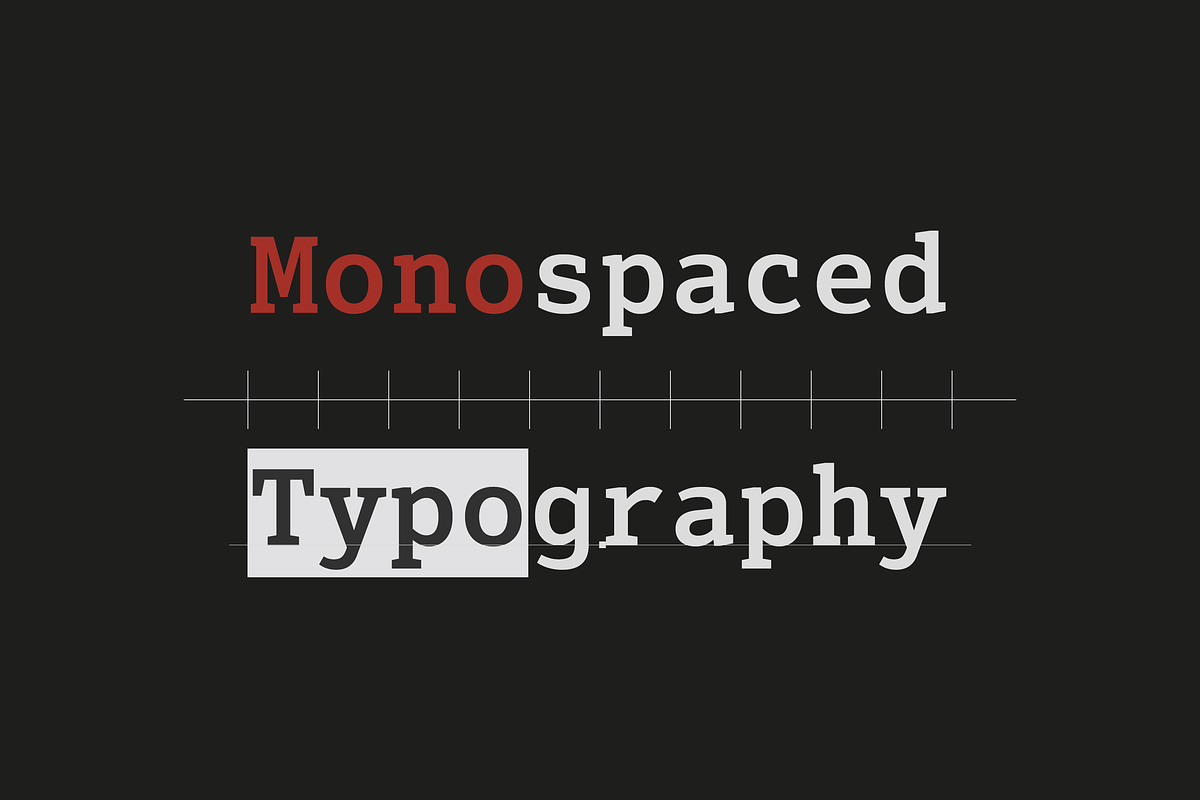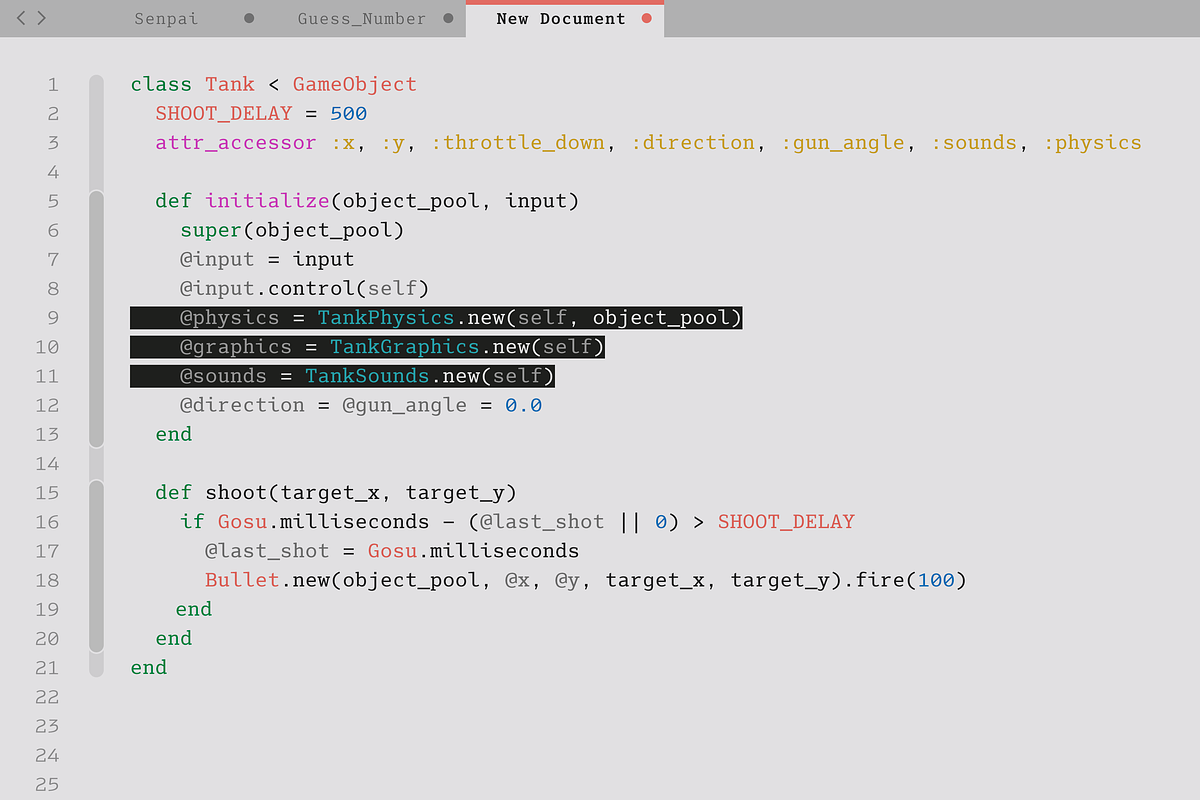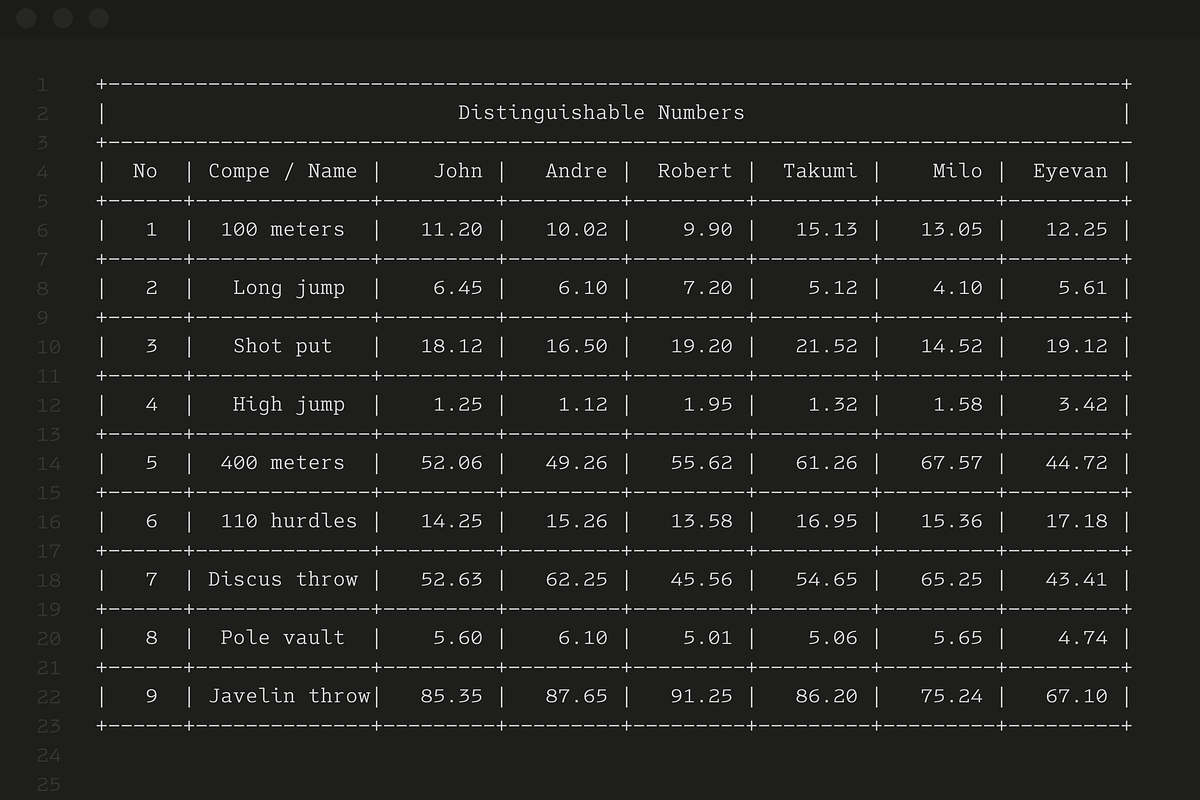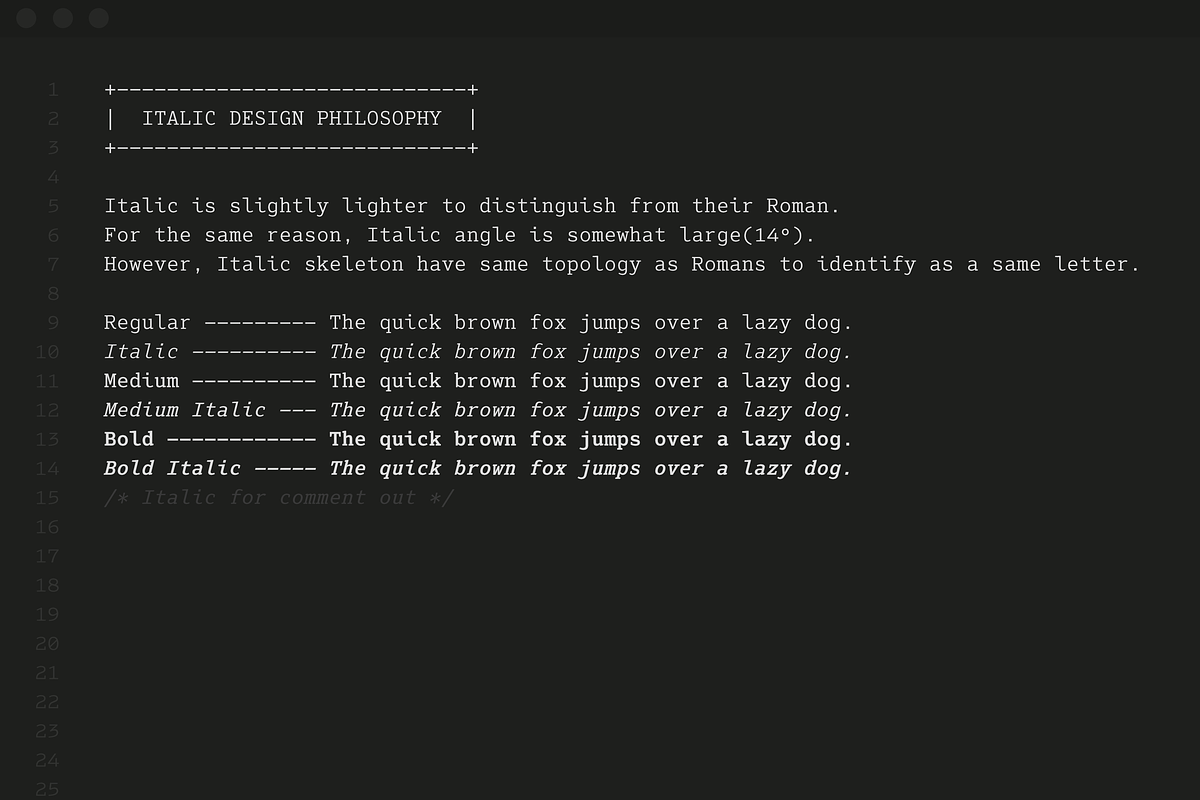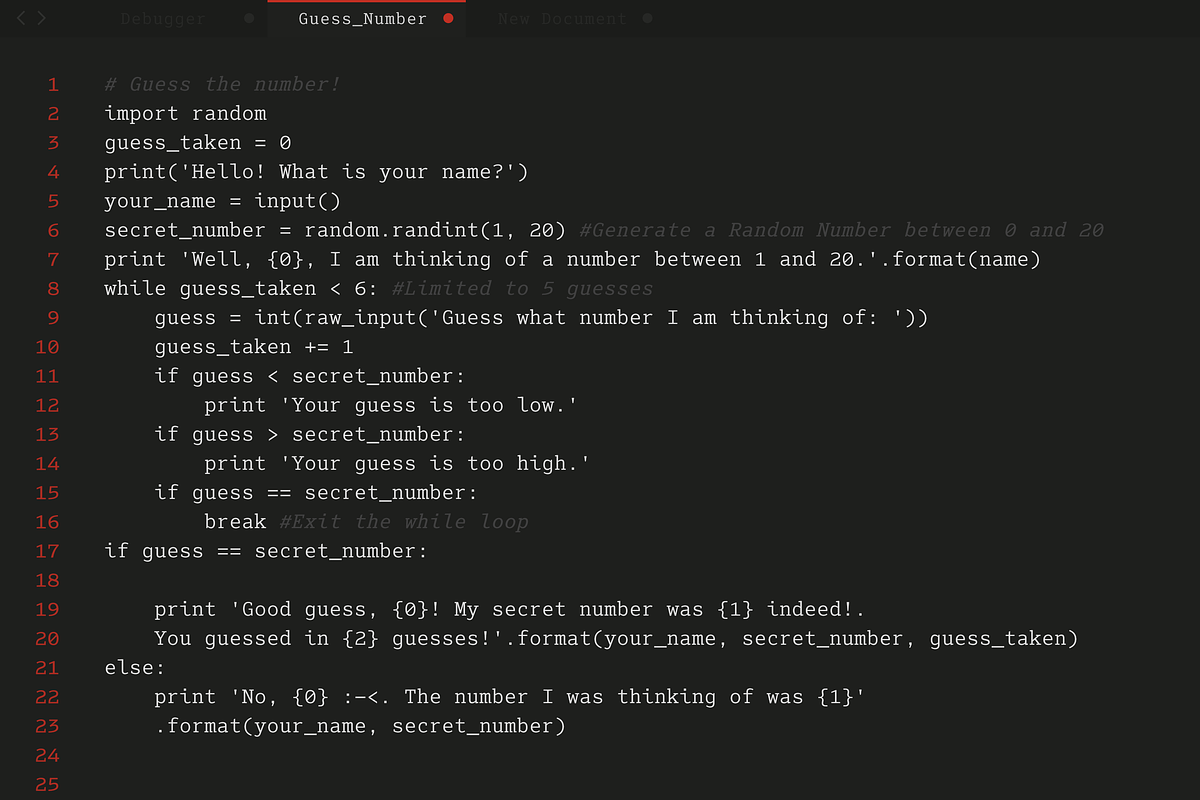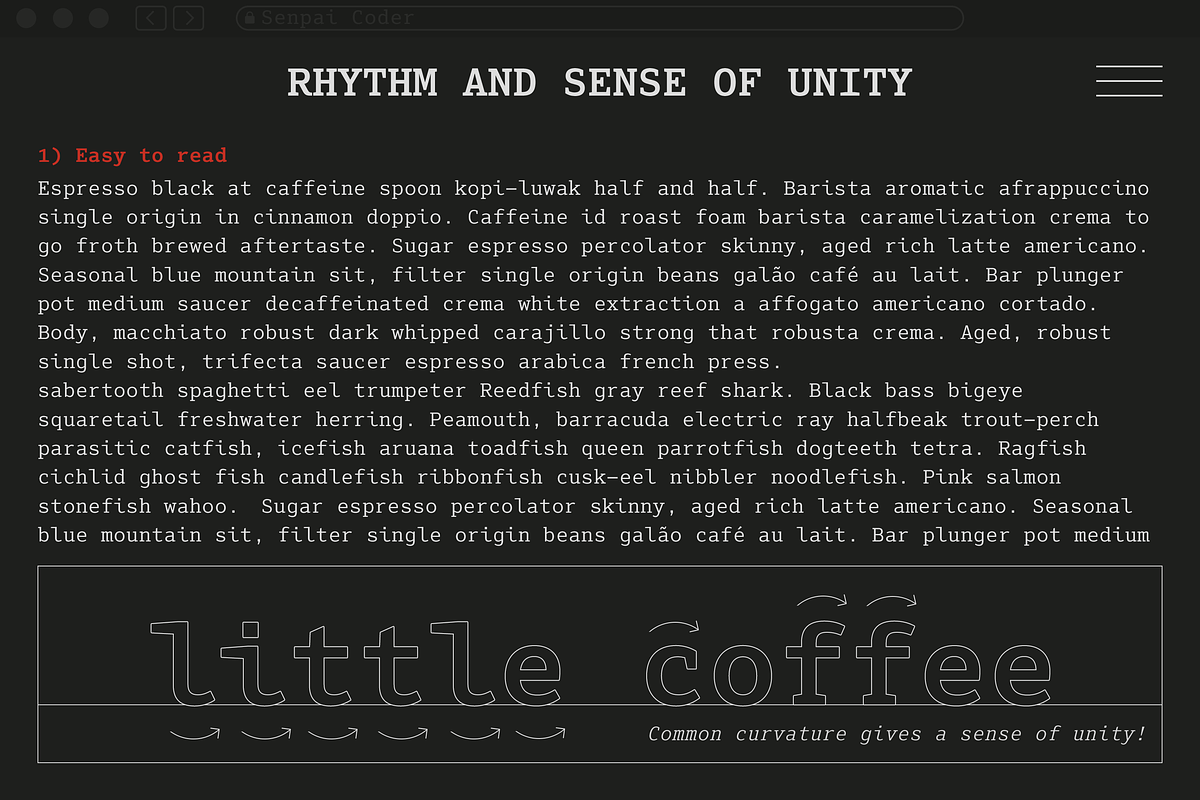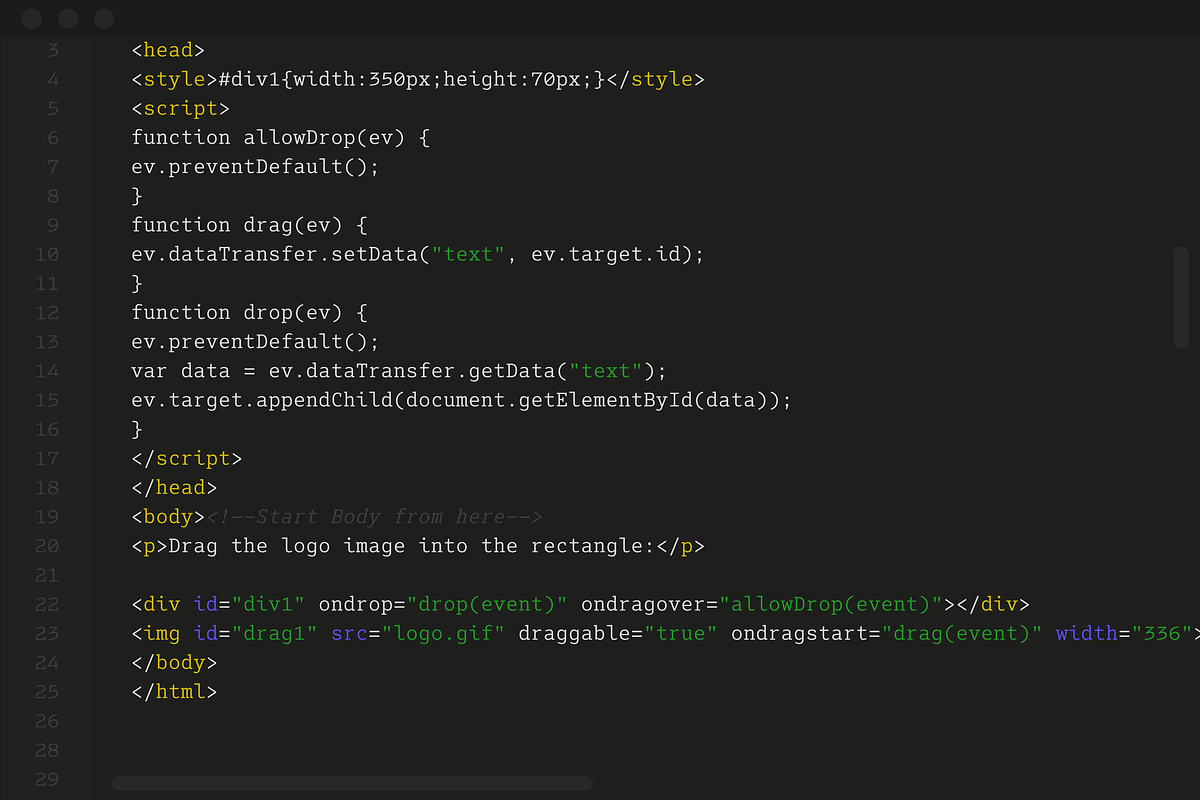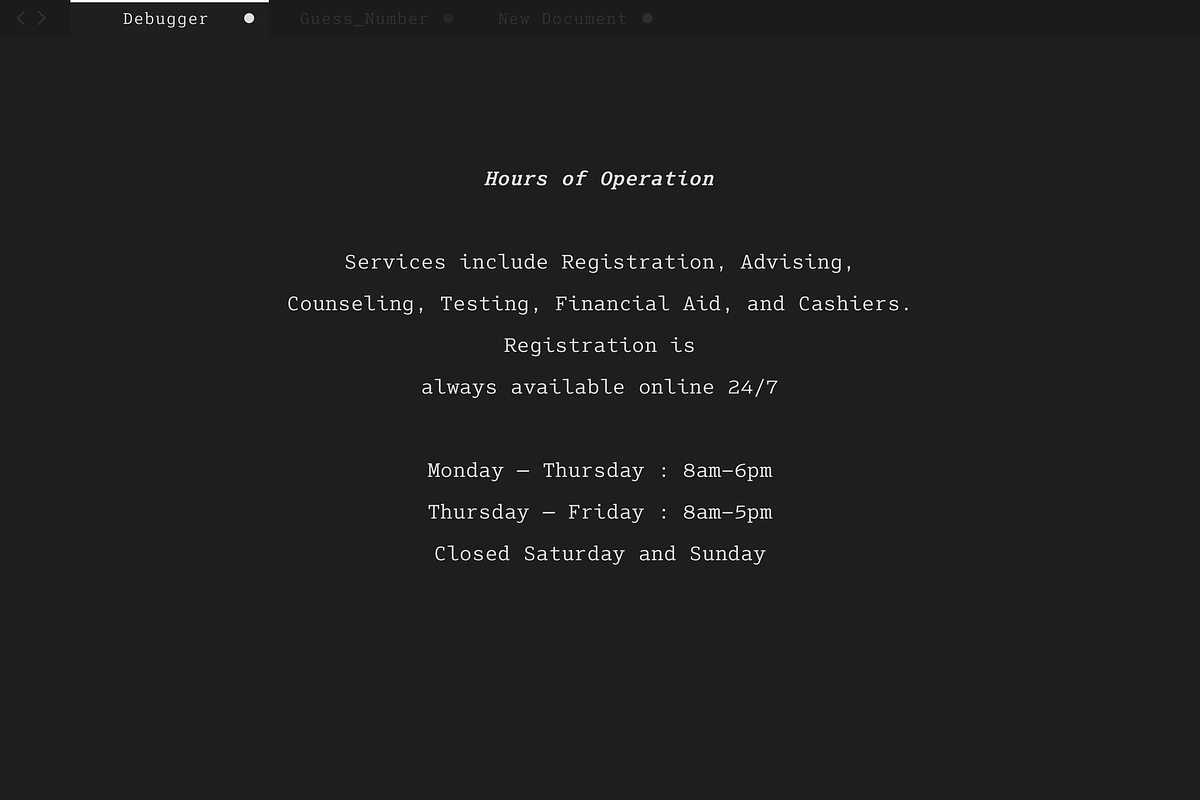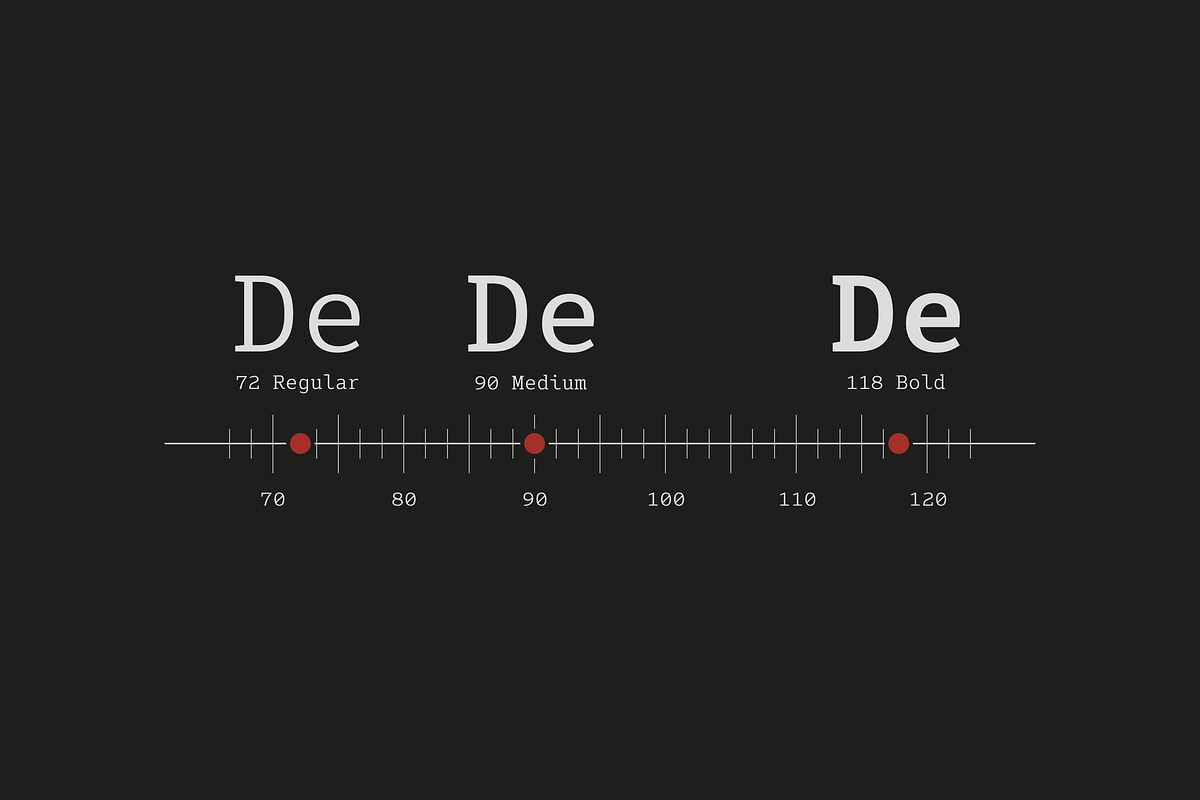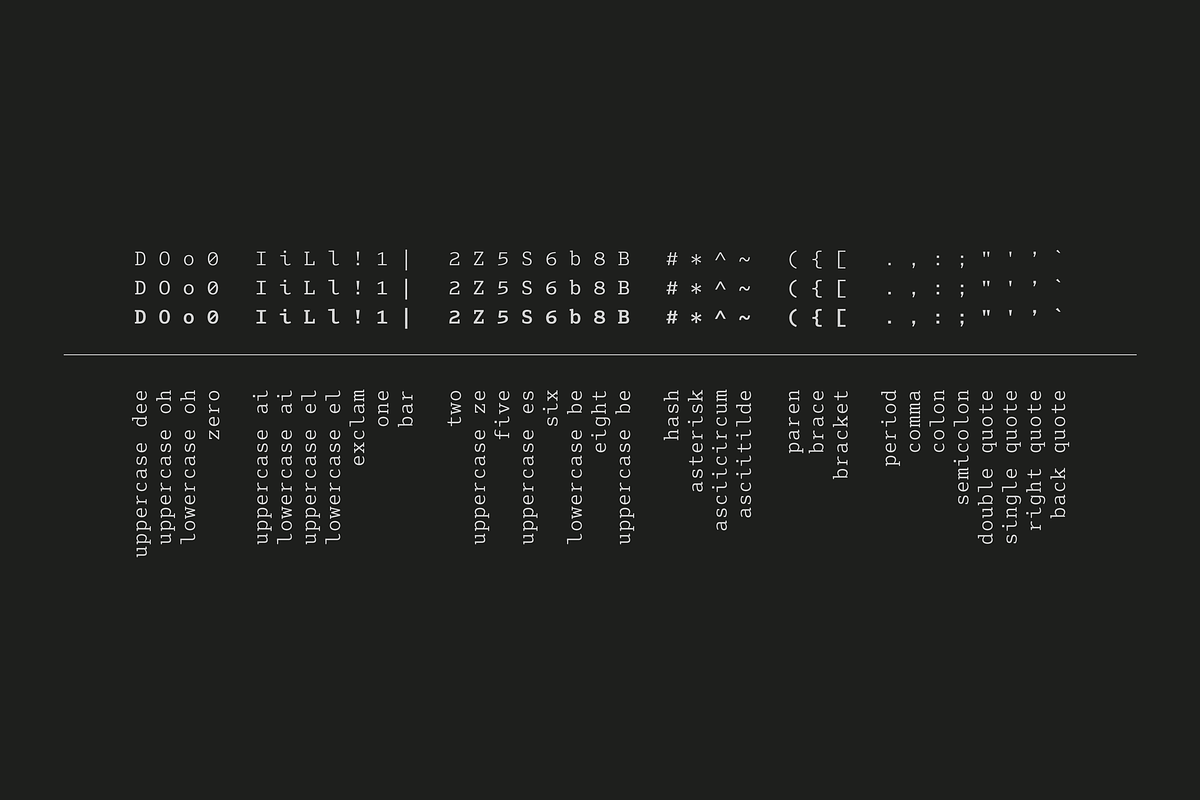
Senpai Coder
Senpai Coder is a typewriter-inspired monospaced font family designed specifically for development, programming, coding, and tabular layouts. In monospaced typefaces, three qualities are essential:
- Easy to distinguish
- Easy to identify
- Easy to read.
Senpai Coder embodies all three. It features carefully refined letterforms that clearly differentiate often-confused characters like zero and uppercase O, one and uppercase I, and two and Z. Thoughtful design choices throughout the family make it exceptionally legible and visually distinct, even during long hours of coding.
The italic styles are designed with a pronounced slant angle and are slightly lighter than the upright styles for better contrast and recognition. Rather than using cursive forms, Senpai Coder opts for a slanted Roman approach, which is far more suitable for programming environments where clarity and structure are critical.
True to its typewriter roots, the font includes serif detailing that improves readability while also adding a touch of personality. Consistent design elements across the entire character set ensure a strong sense of harmony and visual unity.
Senpai Coder supports almost all Latin-based languages, making it a flexible choice for global developers and designers. Try this all-new experiment in monospaced typography—built with both function and flair.